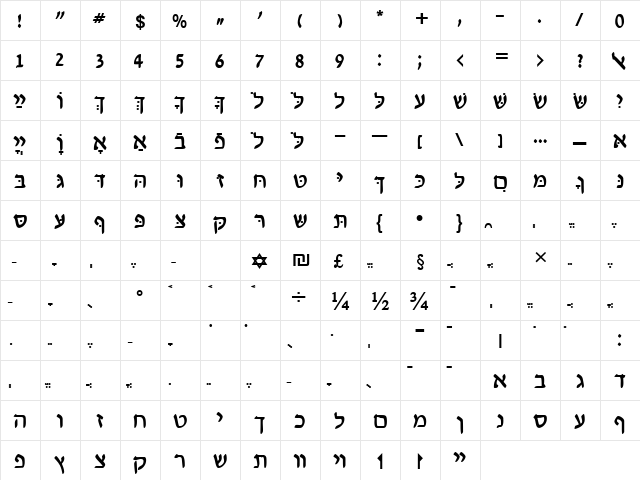
HebrewDavidSSK Bold
Design Context for HebrewDavidSSK Typeface
HebrewDavidSSK offers clean, dependable letterforms without strong stylistic allegiance, making it a practical choice for designers who need flexibility. The heavy weight commands attention and anchors typographic hierarchies.